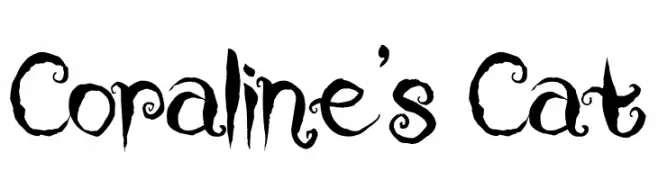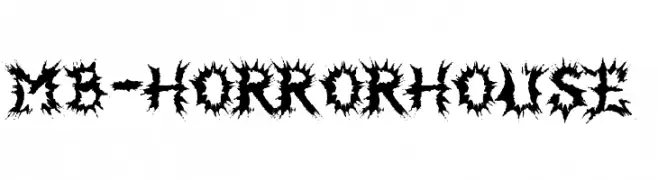
A decorative font with intricate, ornamental uppercase letters and streamlined lowercase characters.
A bold, distressed font with a horror-inspired, brush-stroke appearance.
A bold, jagged font with a distressed, eerie style.
A bold, jagged font with a horror-inspired, dripping aesthetic.
A bold, jagged font with a horror-themed, staggered appearance.
A jagged, eerie font ideal for horror themes.
An eerie, hand-drawn font with sharp, elongated strokes and dramatic contrast.
A whimsical, eerie font with a hand-drawn, vintage circus style.
A whimsical, eerie font with sharp strokes and playful curls.
A whimsical, eerie font with twisted, hand-drawn letterforms.